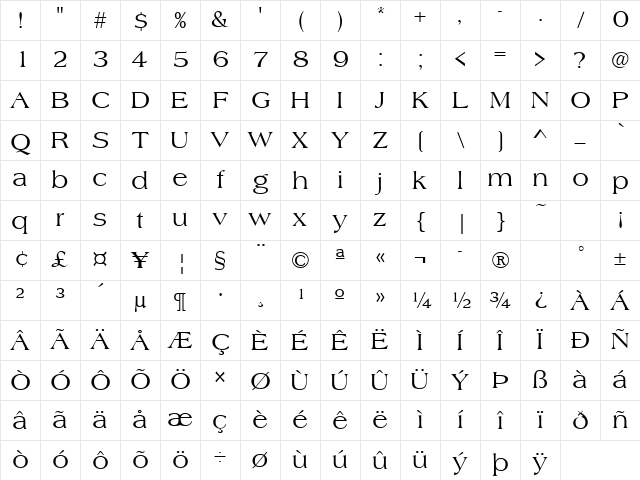
Ambassador Regular
Ambassador Family
Design Context for Ambassador
Ambassador is a composed and adaptable typeface that performs quietly and consistently across a wide range of design contexts.